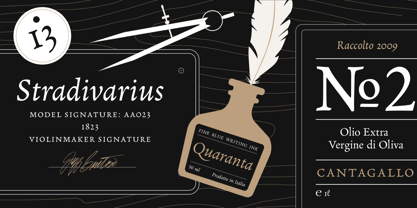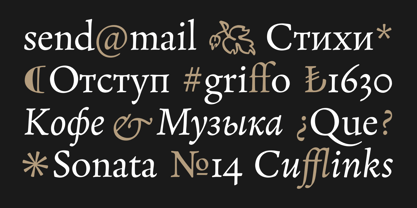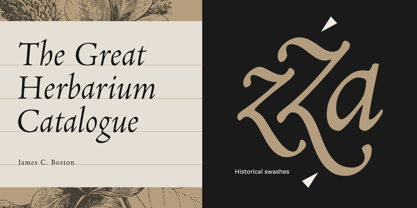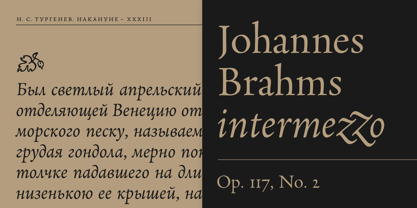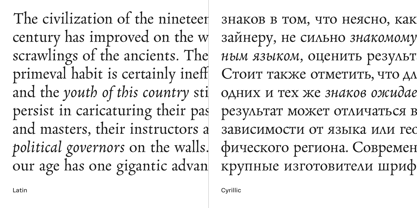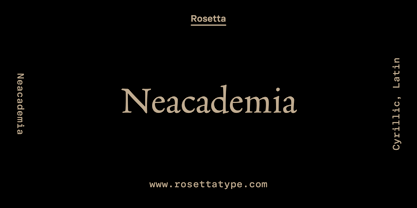
Neacademia Font
Neacademia Font is perfect for educational institutions, academic publications, scholarly journals, university branding, research documentation, scientific presentations, intellectual property materials, professional textbooks, academic conferences, and prestigious educational marketing campaigns.
What makes Neacademia Font so exciting is its scholarly sophistication that perfectly balances intellectual authority with contemporary accessibility, creating typography that communicates academic excellence and educational credibility. This distinguished typeface embodies intellectual rigor and scholarly tradition, delivering visual communication that resonates with academic communities and educational professionals.
The Neacademia Font family includes light, regular, medium, bold, and black weights, complete with italic variations and comprehensive academic features that provide educators and designers with a complete typographic system for all scholarly and educational applications.
The precisely proportioned letterforms of Neacademia Font showcase scholarly elegance with academic character that creates instant recognition of intellectual authority and educational credibility. Each character displays careful attention to maintaining the scholarly sophistication that defines prestigious educational institutions while ensuring contemporary readability and professional versatility. The font's balanced proportions and academic spacing contribute to its authoritative appearance and intellectual appeal.
Educational institutions and academic professionals consistently choose Neacademia Font for projects requiring scholarly credibility and intellectual sophistication. The comprehensive character set includes Latin extended glyphs, academic symbols, mathematical operators, comprehensive punctuation, and scholarly features that provide complete support for complex academic applications and international educational projects.
The intellectual versatility of Neacademia Font ensures exceptional performance across both traditional academic print and modern digital educational platforms. Whether developing institutional brand identities, creating scholarly publications, or designing educational marketing materials, this remarkable typeface delivers consistent authority that resonates with academic audiences seeking intellectual excellence and educational credibility.